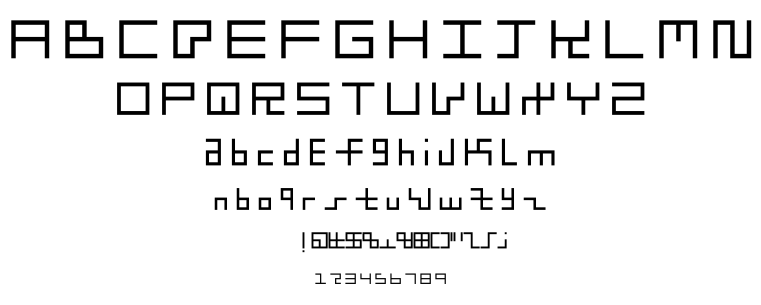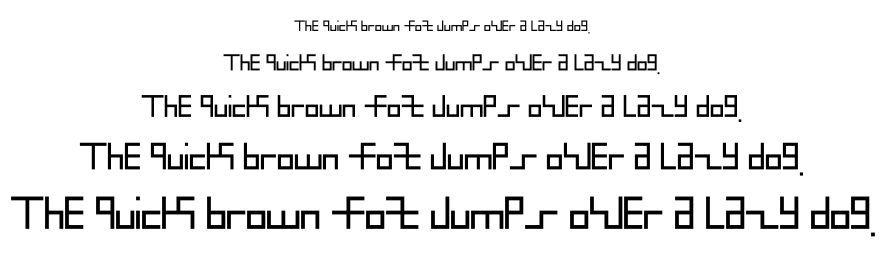
very simple looking, but so many rules! i wanted to stick to four boxes to make each glyph (using only 3 vertical and 3 horizontal lines) and found it to be creatively challenging… i hope you like it… this is the second version that now comes with all caps, lower case and full standard punctuation…